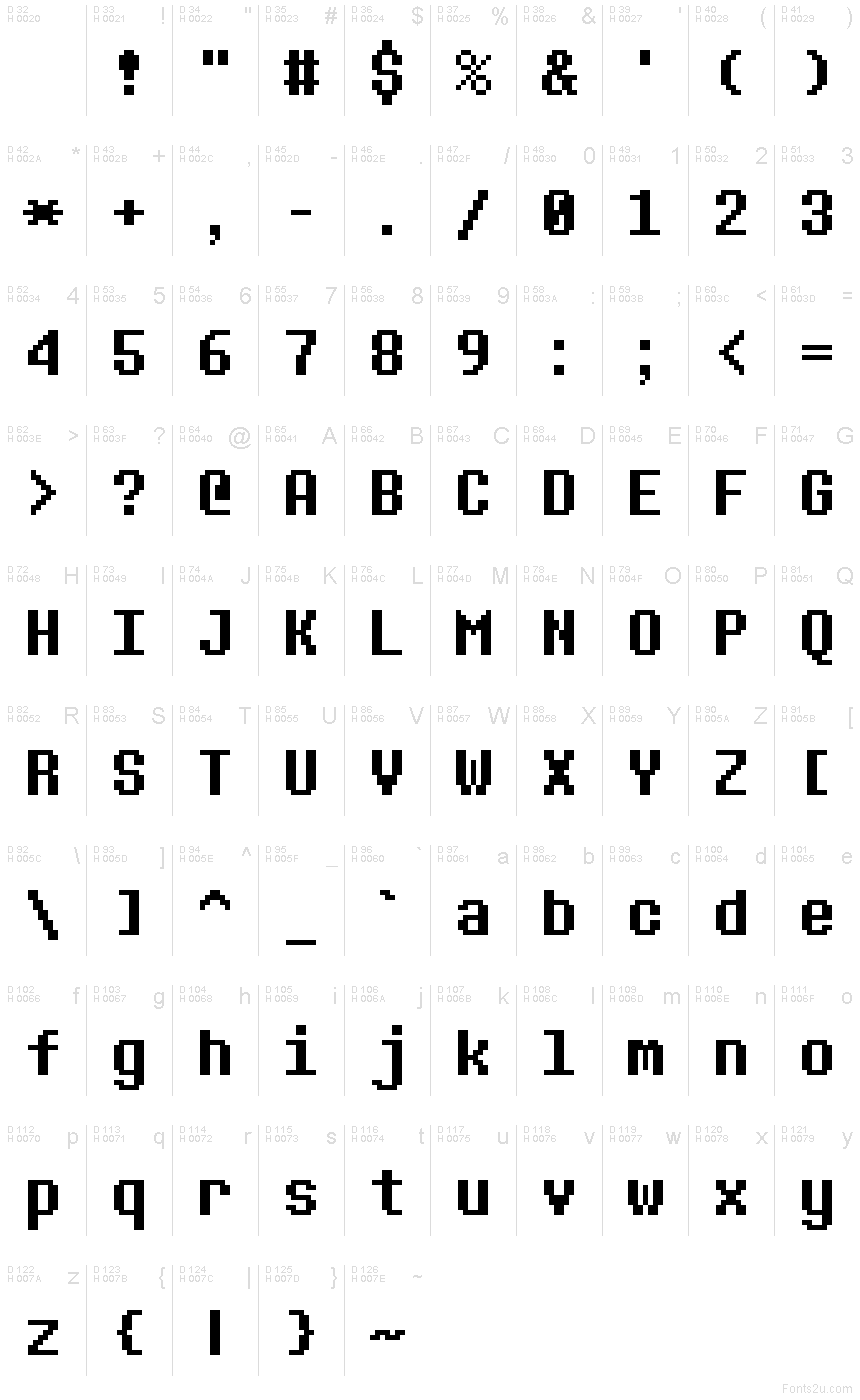
Determination Regular
Determination font by Lucca Cedro is a free bold pixelated bitmap display font. Built on a tight grid, it delivers chunky, stair-stepped forms with crisp corners and a steady vertical rhythm that reads cleanly at small sizes. The spacing feels deliberate and game-ready, with blocky counters and square joins that keep every word sharp on screen.
Using Determination, you’ll nail retro game titles, 8‑bit UI menus, stream overlays, chiptune posters, sticker packs, and leaderboard graphics. This free font shines when you keep it at integer pixel sizes to avoid blur, and it pairs naturally with a clean monospaced sans for body copy. Set it large for punchy headlines or lock it to your UI grid for consistent, legible labels.
Designer description: Ever seen the Undertale/Deltarune font in languages like Russian, Greek, Polish, Vietnamese ... ?